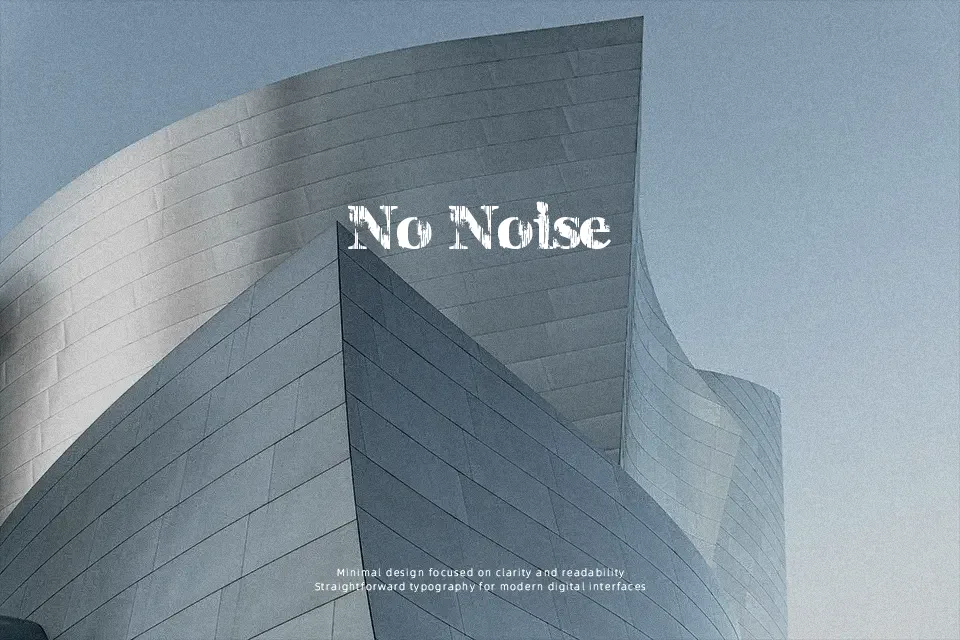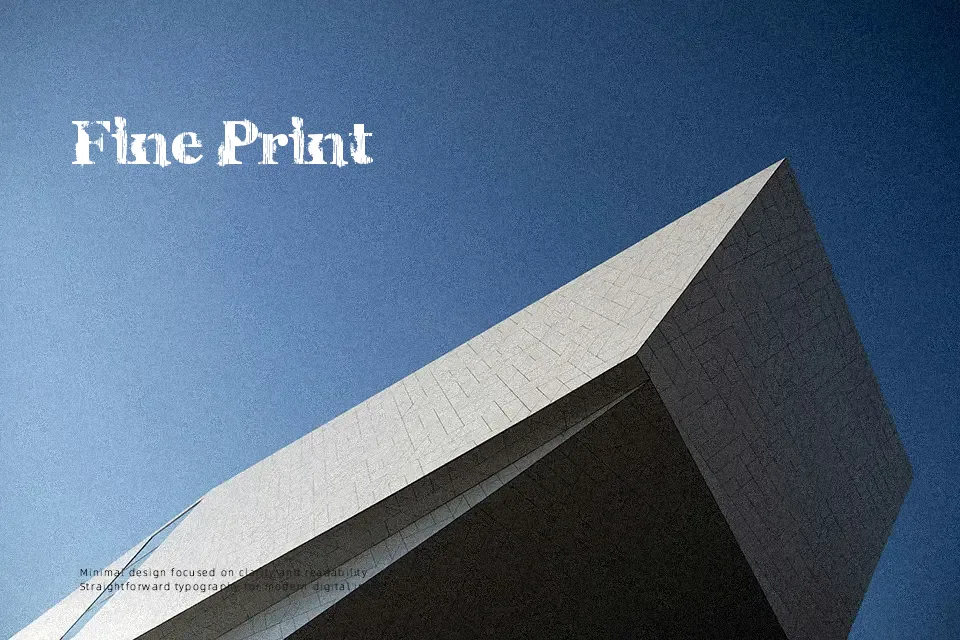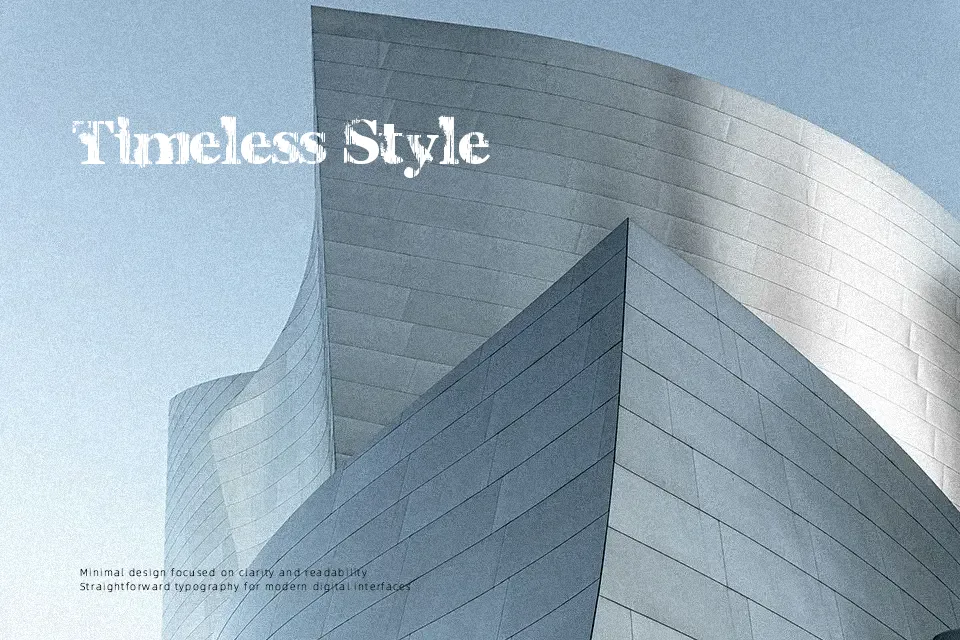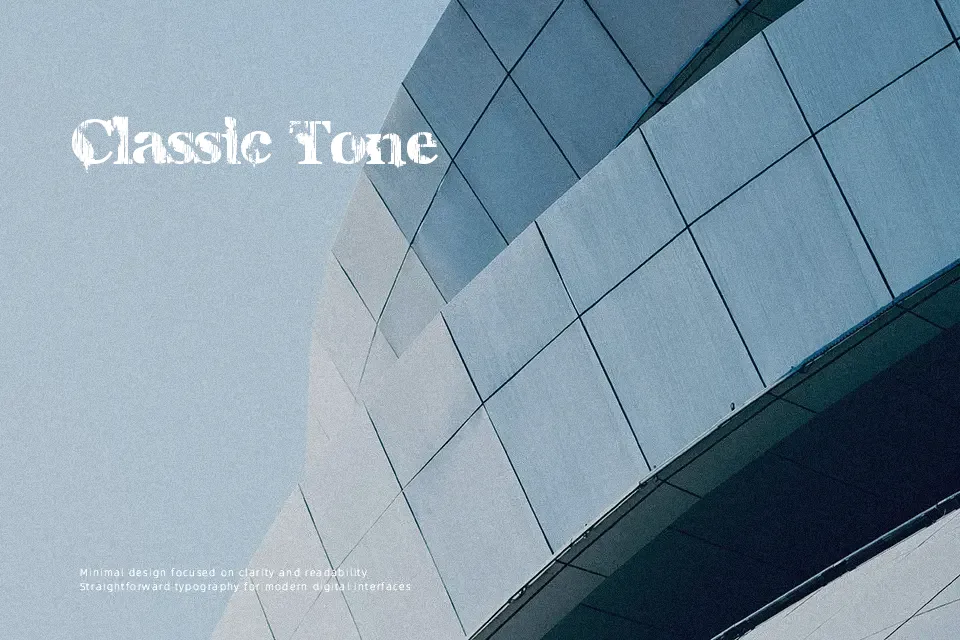
Charles S. Font
Designed by Jonathan Paquette
Charles S. Font presents an aggressively textured display structure marked by fragmented outlines, inconsistent edge erosion, and heavy stroke weight. The letterforms display tight spacing and irregular proportions that produce an intense, chaotic rhythm across short lines of text. Readability remains sharp at prominent display scales, making the design particularly effective for underground album artwork, video game teasers, and distressed apparel graphics. However, the dense decorative deterioration causes individual characters to blur together when set at small sizes. The typeface works best when restricted to brief, punchy titles where its raw energy reinforces the theme without compromising reading comfort.
Best For: horror film title cards, music festival posters, underground apparel graphics, video game banners
Not Ideal For: continuous editorial paragraphs, small interface button labels, legal documentation, dense data tables
Perfect for film, gaming, and headline, with a bold and decorative style.